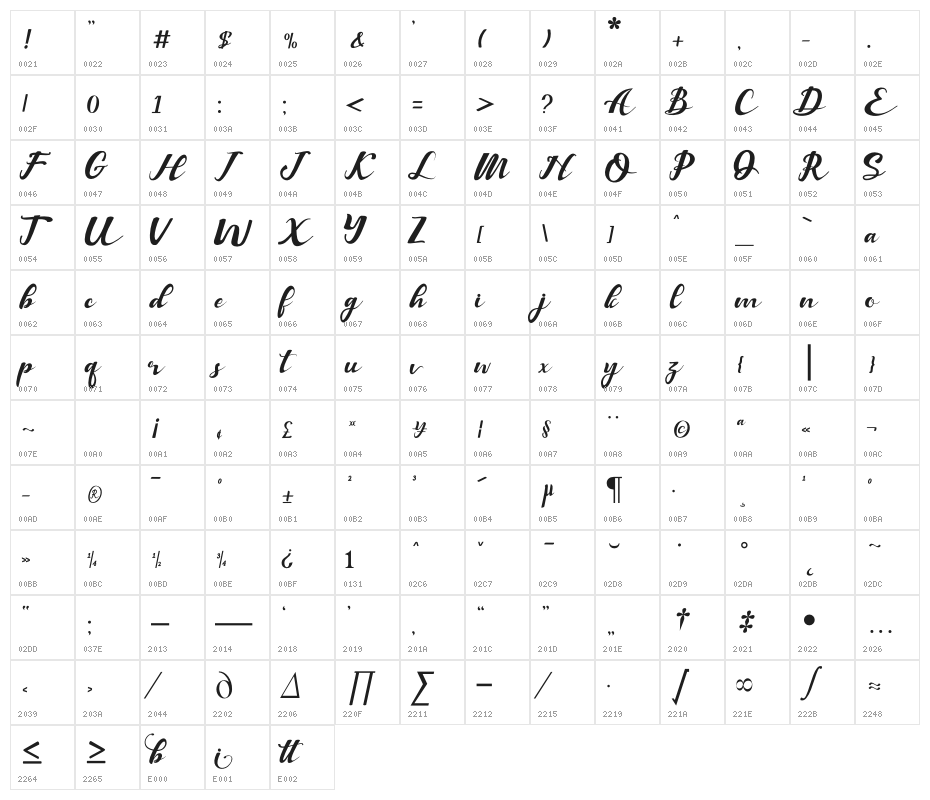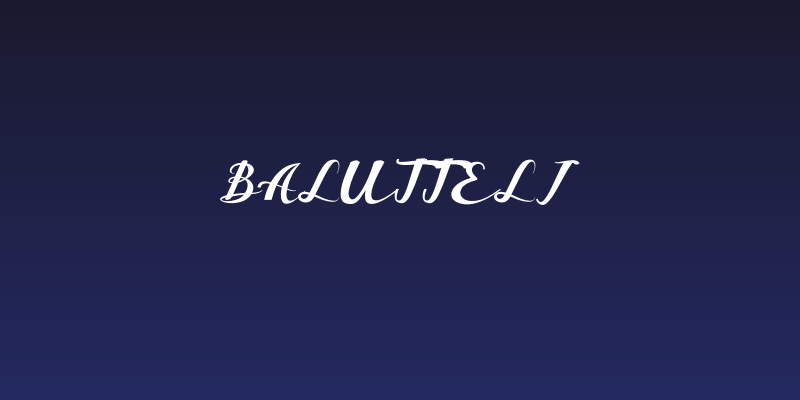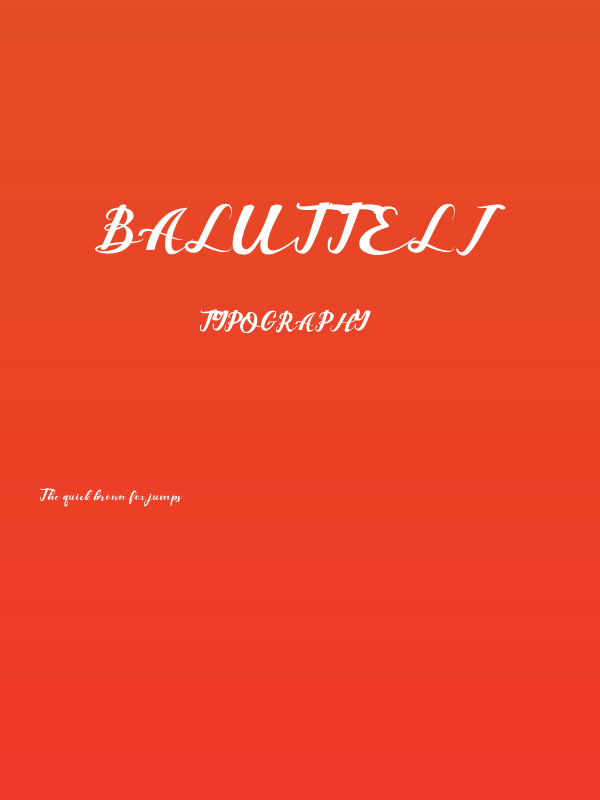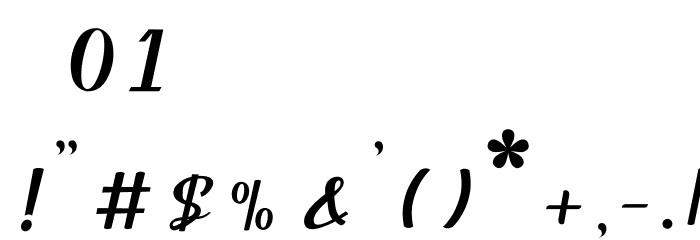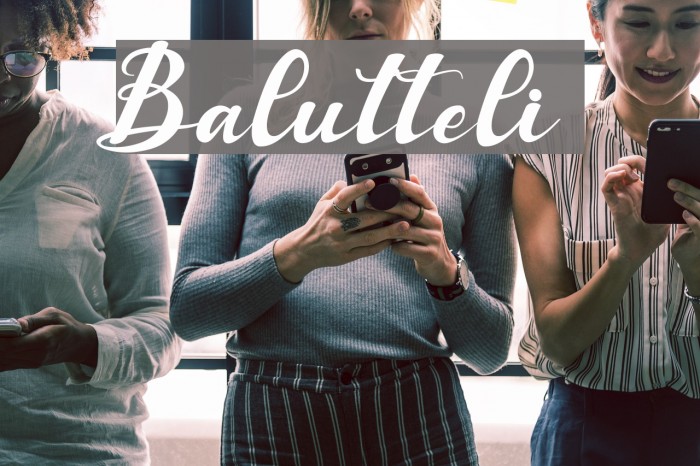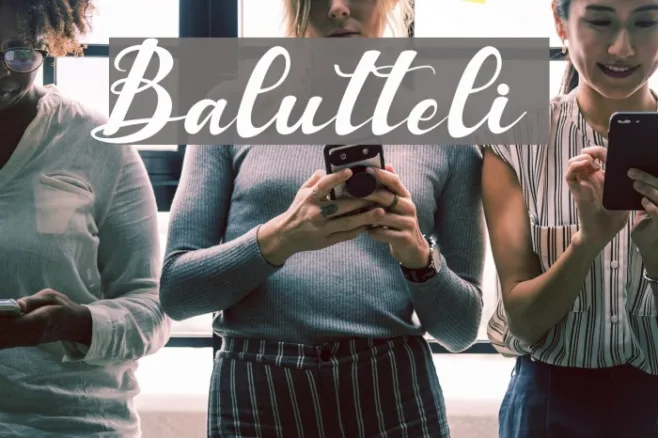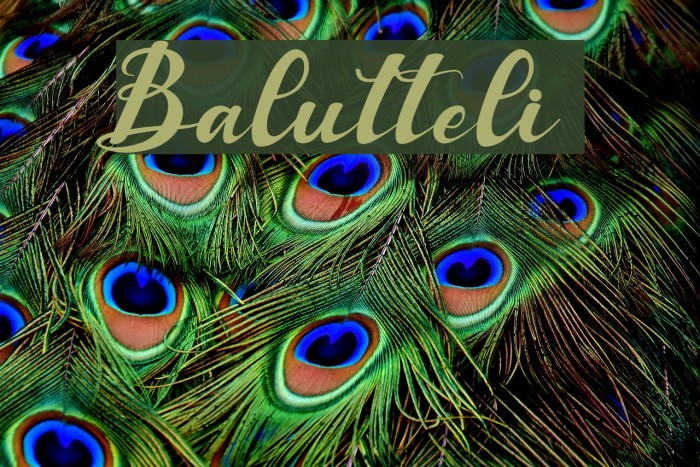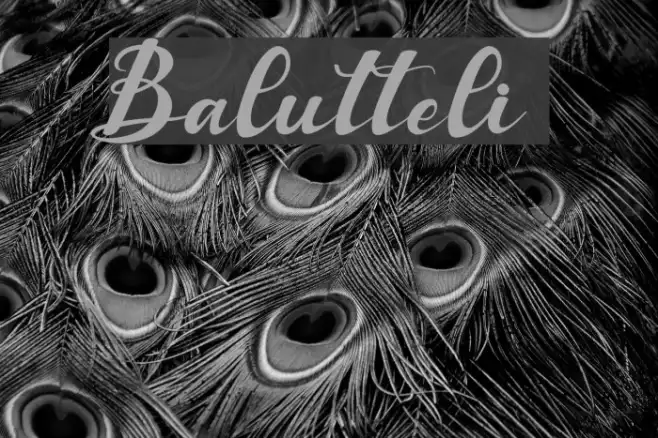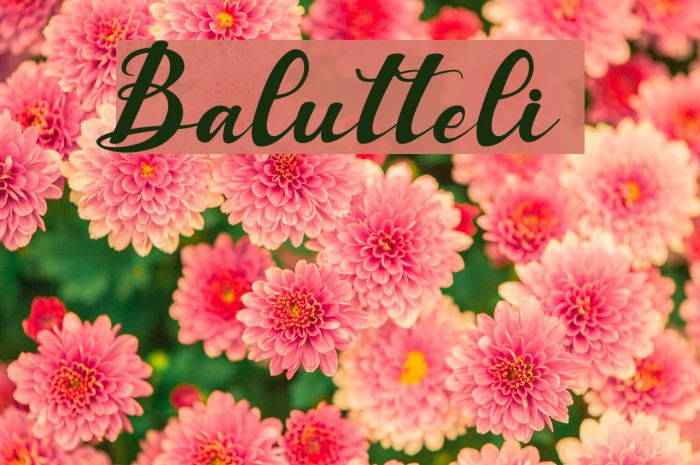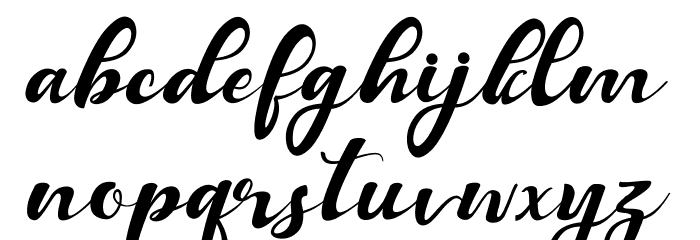
Balutteli Font
Balutteli Description
This font features a flowing, cursive script style with elegant and smooth curves. The uppercase letters are bold and prominent, while the lowercase letters maintain a consistent fluidity, enhancing the overall aesthetic. The characters are closely connected, creating a harmonious and continuous line that is visually appealing. The numbers and special characters are designed to match the script's style, ensuring a cohesive look across all text elements. This font exudes a sense of sophistication and grace, making it suitable for formal and decorative applications.
| Proposed Projects | Ideal for wedding invitations, elegant branding, greeting cards, and decorative signage. |